Using Web Fonts — Typography Without Limits
Typography is the voice of your website. It tells your visitors if you’re sleek and modern, playful and bold, or professional and elegant. But how do you go beyond the basic, overused fonts like Arial, Times New Roman, and Comic Sans? Enter web fonts.
Web fonts empower you to break free from the shackles of “safe” fonts and bring personality and flair to your designs. Let’s dive into what web fonts are, how to use them, and some best practices to keep your site looking sharp and loading fast.
1. What Are Web Fonts?
Web fonts are fonts that are downloaded from the web and rendered by the browser. Unlike system fonts (which are pre-installed on the user’s device), web fonts are hosted online and can be accessed by any device with an internet connection.
This means you’re no longer limited to the fonts installed on your visitors’ devices. You can choose from thousands of beautiful fonts to match your brand and style.
1.1 Popular Web Font Services
There are several services that provide a vast collection of web fonts:
- Google Fonts: Free, easy to use, and with an extensive library.
- Adobe Fonts: A premium option with high-quality typefaces.
- Fonts.com and Typekit: Other premium services with unique selections.
1.2 Why Use Web Fonts?
- Creative Freedom: Access a variety of styles and weights to elevate your designs.
- Consistency: Web fonts ensure your typography looks the same across devices.
- Brand Identity: Unique fonts help you stand out and build a recognizable brand.
2. How to Use Web Fonts in CSS
Using web fonts in CSS is straightforward. You’ll generally follow these steps:
Choose a Font: Pick a web font from a provider like Google Fonts.
Embed the Font: Add a link or @font-face rule in your CSS to load the font.
Apply the Font: Use the font-family property to style your text.
2.1 Adding Web Fonts via Google Fonts
Let’s use Google Fonts as an example. Suppose you want to use the font Lato.
Step 1: Include the Font in Your HTML
Go to Google Fonts, select Lato, and copy the embed link. Add it to your HTML <head>:
Step 2: Apply the Font in CSS
Now you can style elements with the font-family property:
2.2 Using the @font-face Rule
For more customization or self-hosted fonts, use the @font-face rule. This method lets you load fonts directly from your server.
Example
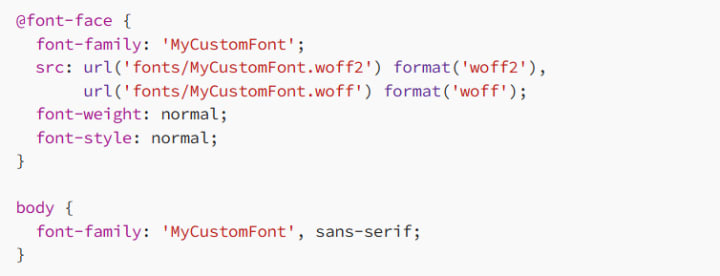
Here, you upload the font files to your server and reference them in your CSS.
3. Best Practices for Using Web Fonts
While web fonts offer creative freedom, they can also affect your site’s performance. Here are some tips to balance design and speed:
3.1 Limit the Number of Fonts
Using too many fonts can slow down your website. Stick to two to three font families at most. For example:
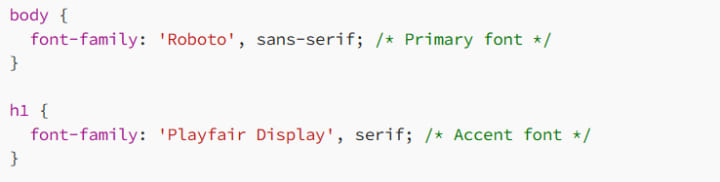
3.2 Use Variable Fonts
Variable fonts are like having multiple font styles in one file. Instead of downloading separate files for different weights (e.g., bold, italic), you can load a single variable font and adjust its properties in CSS.
Example:
The font-display property controls how text is displayed while the font is loading.
- swap: Displays fallback text until the web font loads.
- block: Hides the text until the font is fully loaded.
- fallback: Displays fallback text if the font takes too long to load.
3.4 Use Fallback Fonts
Always specify fallback fonts in case the web font fails to load.
In this example, the browser will use Arial if Lato fails.
3.5 Test Your Fonts
Typography looks different across devices and browsers. Always test your fonts for readability and style consistency.
4. Responsive Typography with Web Fonts
Web fonts work beautifully with responsive designs. Use relative units and media queries to ensure your text looks great on all screen sizes.
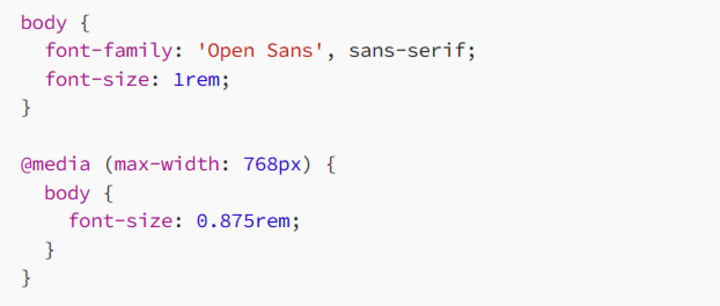
This example adjusts the font size for smaller screens to maintain readability.
5. Tools for Web Fonts
Here are some handy tools to level up your web typography:
- Google Fonts: Free fonts with customizable weights and styles.
- Font Squirrel: Downloadable web fonts, including kits for self-hosting.
- WhatFont Tool: Browser extension to identify fonts used on any website.
6. Common Pitfalls to Avoid
6.1 Ignoring Performance
Heavy font files can slow down your site. Always optimize and preload fonts where possible.
This ensures fonts are loaded early for faster rendering.
6.2 Poor Fallback Choices